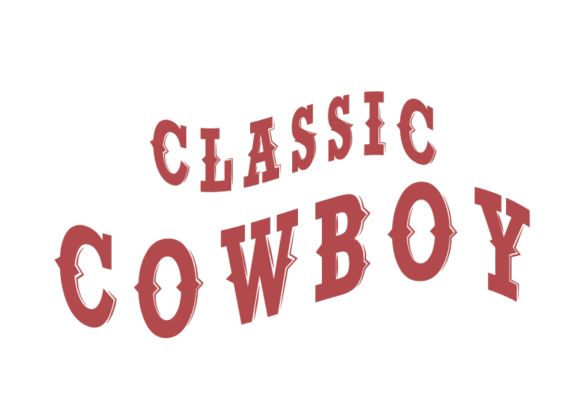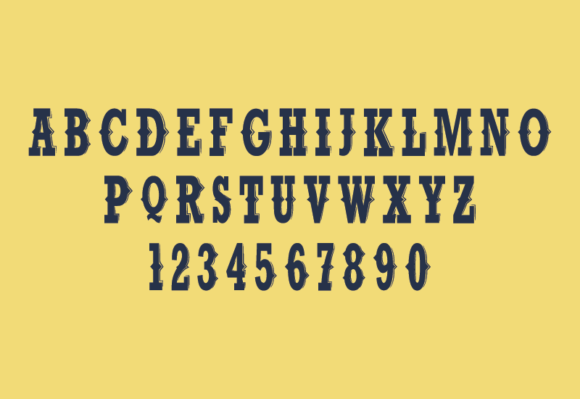
Introducing Classic Cowboy: A Timeless Western-Style Serif Font
Are you looking for a font that exudes a sense of nostalgia and rugged elegance? Look no further than Classic Cowboy, a simple yet sophisticated Western-style serif font designed to bring a clean retro look to your designs. With its vintage balanced proportions, Classic Cowboy is the perfect choice for creating a minimalist aesthetic in logos, web design, and branding.
The Inspiration Behind Classic Cowboy
Classic Cowboy is inspired by the classic typography of the American West. The font’s design is rooted in the traditional serif fonts of the 19th century, with a modern twist that gives it a fresh and clean look. The result is a font that feels both nostalgic and timeless, perfect for designers and crafters who want to add a touch of classic elegance to their work.
Key Features of Classic Cowboy
So what sets Classic Cowboy apart from other fonts? Here are just a few of its key features:
• Western-style serif font: Classic Cowboy features a traditional serif design with a Western twist, giving it a unique and distinctive look.
• Clean retro look: The font’s clean lines and balanced proportions give it a retro feel that’s perfect for creating a minimalist aesthetic.
• Vintage balanced proportions: Classic Cowboy’s proportions are carefully balanced to create a sense of harmony and elegance.
• Simple and sophisticated: Despite its bold and rugged inspiration, Classic Cowboy is a surprisingly simple and sophisticated font that’s perfect for a wide range of design applications.
Using Classic Cowboy in Your Designs
So how can you use Classic Cowboy in your designs? Here are just a few ideas to get you started:
• Logos: Classic Cowboy is perfect for creating a minimalist logo that’s both elegant and memorable.
• Web design: The font’s clean lines and simple design make it perfect for use in web design, where readability and clarity are key.
• Branding: Classic Cowboy is a great choice for branding projects, where a consistent and recognizable visual identity is essential.
Why Choose Classic Cowboy?
So why should you choose Classic Cowboy for your next design project? Here are just a few reasons:
• Unique and distinctive look: Classic Cowboy’s Western-style serif design gives it a unique and distinctive look that sets it apart from other fonts.
• Versatile: The font’s simple and sophisticated design makes it perfect for a wide range of design applications.
• Elegant and refined: Despite its rugged inspiration, Classic Cowboy is an elegant and refined font that’s perfect for creating a sophisticated aesthetic.
In conclusion, Classic Cowboy is a timeless Western-style serif font that’s perfect for designers and crafters who want to add a touch of classic elegance to their work. With its clean retro look, vintage balanced proportions, and simple yet sophisticated design, Classic Cowboy is the perfect choice for creating a minimalist aesthetic in logos, web design, and branding. So why wait? Download Classic Cowboy today and start creating your own unique designs!